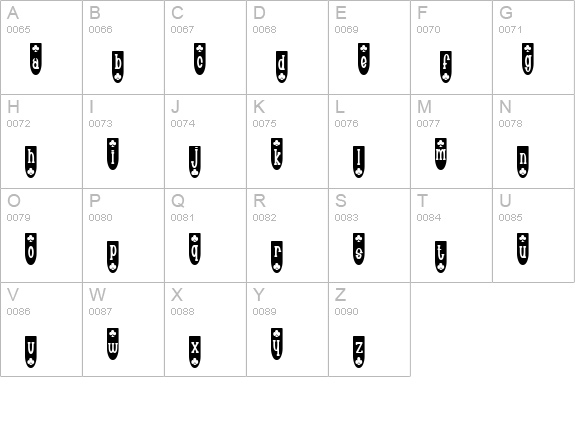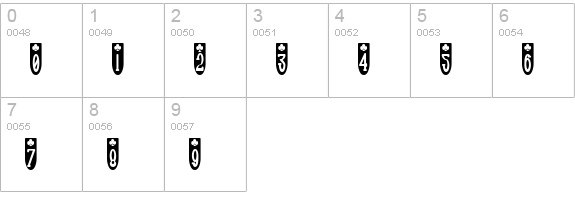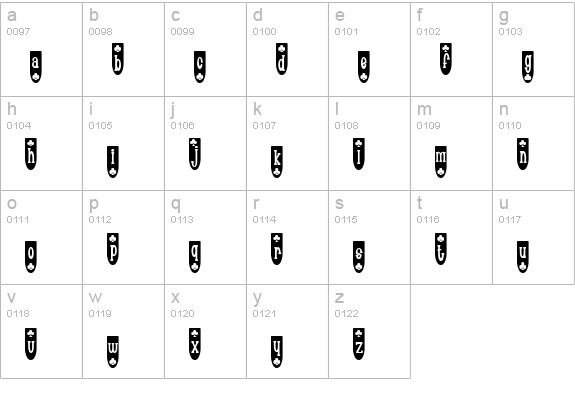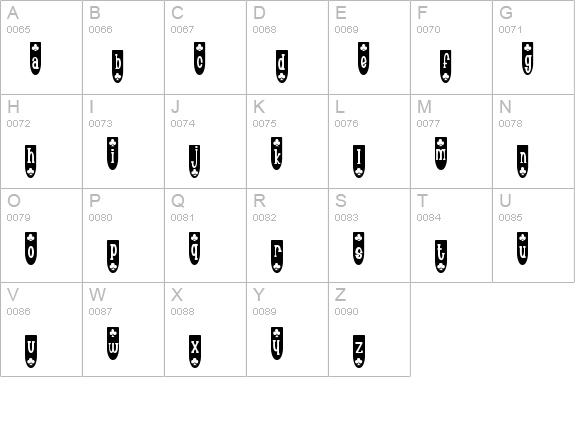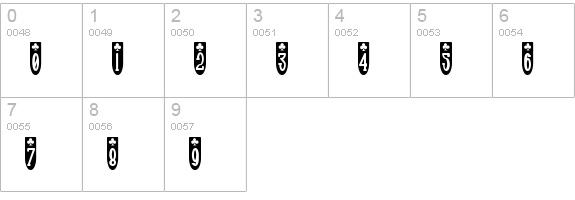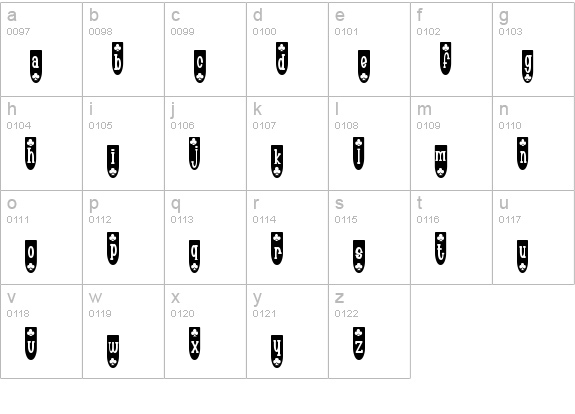
Populuxe Blub Font Details
Populuxe Blub font is a visually stunning display typeface that perfectly captures the retro-futuristic aesthetic of the Populuxe design style. With its bold lines and playful curves, this font is sure to make a statement in any design project. The unique blend of modernity and nostalgia gives Populuxe Blub a timeless appeal that will surely stand out. What's even better is that Populuxe Blub font is available for free download at FontsMarket.com. This means you can easily add this eye-catching font to your collection without any cost. Whether you're working on a poster, logo, or any other creative project, Populuxe Blub font is a fantastic choice to bring a touch of retro charm to your designs. Download it now and let your creativity shine with this stylish and versatile typeface.